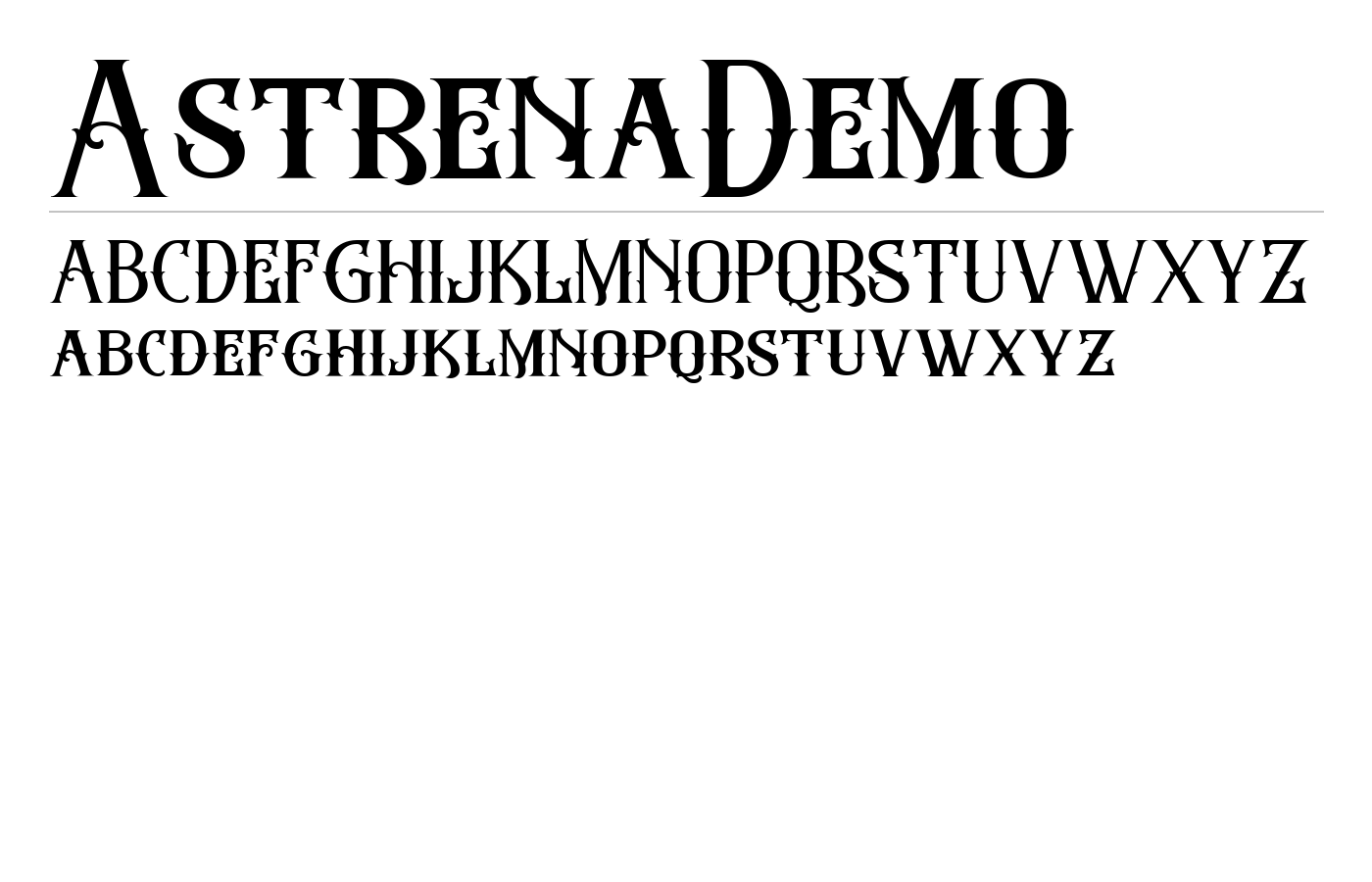
AstrenaDemo is a decorative serif font with a strong vintage vibe, featuring high contrast strokes and elegant, sharp serifs with distinctive curled terminals. Its unique ornamental details lend an artistic and sophisticated feel, making it ideal for luxury branding, editorial headlines, and stylish logo design where a dramatic, timeless impression is desired.
AstrenaDemo Font
About AstrenaDemo Font